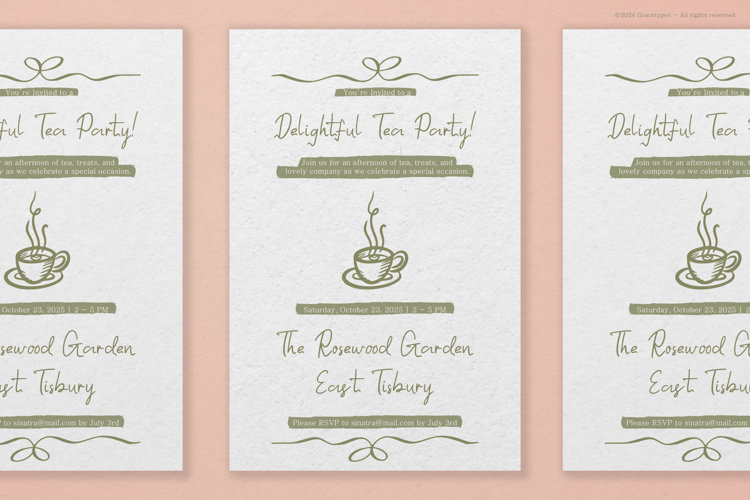
Sinatra Draw Font
Sinatra Draw | Handwritten Font is suitable for any projects such as: logos, branding projects, homeware designs, product packaging, mugs, quotes, posters, shopping bags, t-shirts, book covers, name card, invitation cards, greeting cards, label, photography, watermark, special events, and all your other lovely projects that need a Handwritten Font taste.